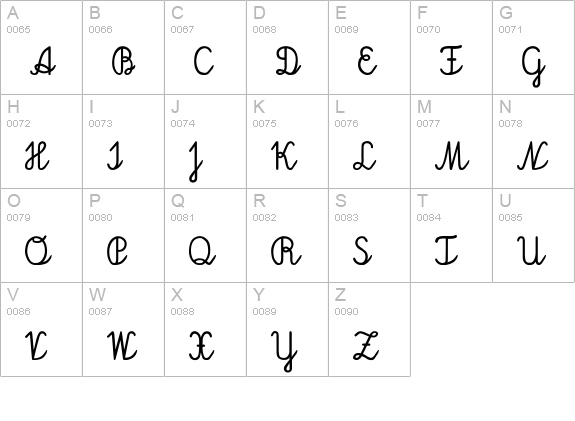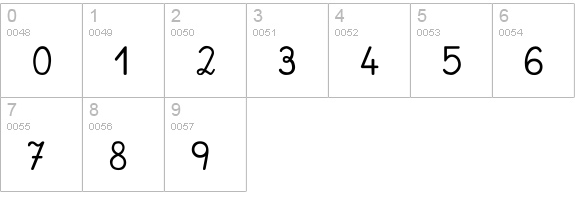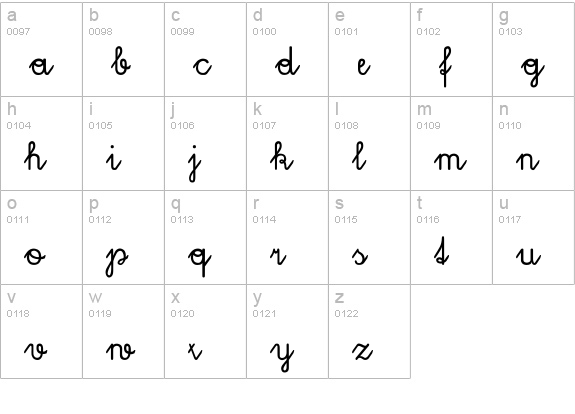
Schuschri 69-0 Font Details
Introducing the captivating and versatile Schuschri 69-0 font, a modern typeface that embodies the perfect fusion of elegance and creativity. With its sleek lines and impeccable letterforms, this font is sure to make a lasting impression in any design project. Schuschri 69-0 offers a wide range of characters, from uppercase and lowercase letters to punctuation marks and numerals, allowing you to effortlessly bring your ideas to life. Whether you're designing a logo, creating a poster, or crafting a stylish website, this font will add a touch of sophistication and uniqueness to your work. One of the most remarkable features of Schuschri 69-0 is that it is free to use, making it accessible to designers of all levels. You can easily download this font from FontsMarket.com, a trusted source for high-quality fonts. With just a few clicks, you'll have access to a world of creative possibilities, without having to worry about any costs. The versatility of Schuschri 69-0 knows no bounds. Its clean and modern aesthetic makes it suitable for a wide range of design projects, from fashion and beauty to technology and corporate branding. Its legibility and readability ensure that your message will be conveyed effortlessly, while its unique personality adds a touch of sophistication and style. Schuschri 69-0 is a true gem in the world of typography, combining beauty, functionality, and accessibility. So why wait? Download this font today from FontsMarket.com and unleash your creativity with every stroke of the keyboard. Elevate your designs and captivate your audience with the timeless charm of Schuschri 69-0.